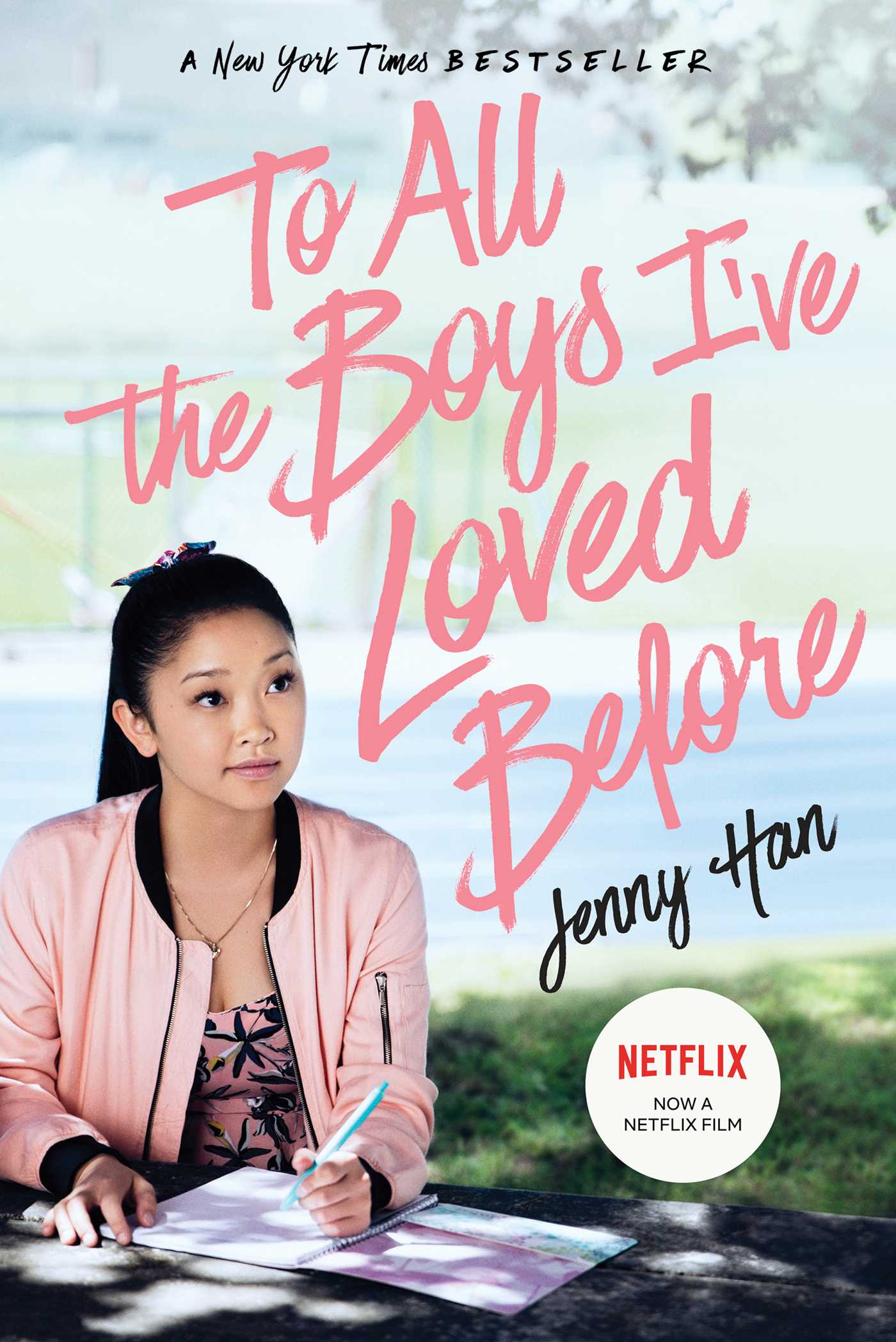
To All the Boys I've Loved Before Font
Fonts in UseTo All the Boys I’ve Loved Before is a series of romantic comedy films based on the novels by Jenny Han. The films were produced by Netflix, following the story of high school student Lara Jean Covey and the letters she wrote to her crushes.
On the movie poster, the title is written using a typeface called Have Heart, which was created by Sam Parrett. Have Heart is a brush script font with two hand-made fonts and swashes, allowing for stunning typography and hand-lettering combinations.